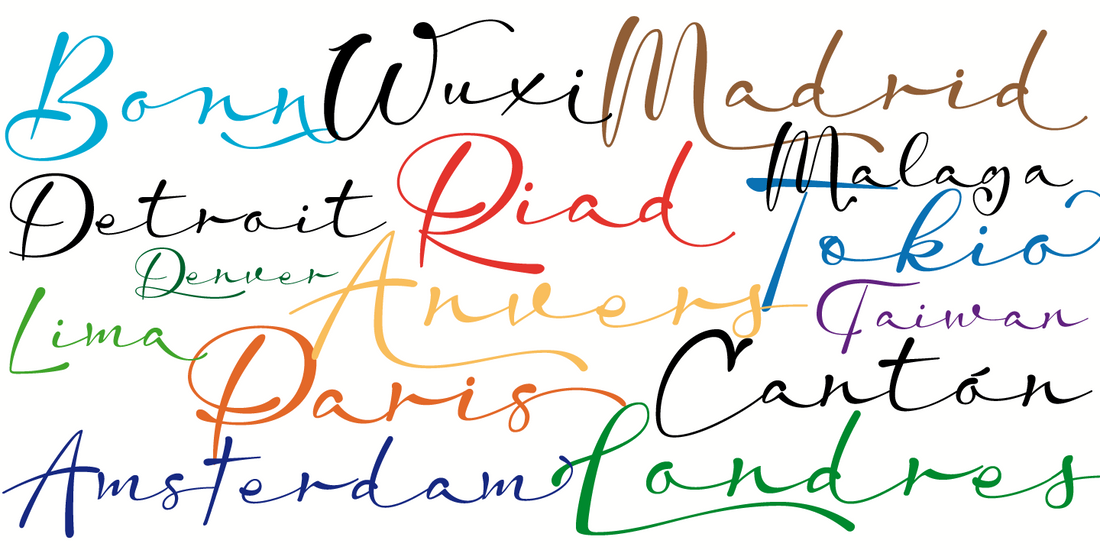
Escaut – Interview with Carine de Wandeleer
Carine de WandeleerInterviewer: Escaut is a modern-looking flowing handwriting font with a very relaxed appearance. Did you design it with any particular applications in mind?
Carine: No, I didn't really design Escaut for any specific purpose. Actually I don't think about what a font can be used for, because I believe that could limit me. I’m often inspired by what I see around me, on supermarket packaging, magazines, street signs, in the works of ancient calligraphers or contemporary artists, or simply in the writing of someone close to me. So no. I just wake up one day wanting to do this or that, and I do it.
The fonts that I produce are not for me, they are for other designers to use in their work. They are the ones who will choose the appropriate font for their application, and will use it as they want. I try to design with a wide range of styles, and the designer who is looking for a calligraphic font will find in my work a lot of material to choose from.
I: Escaut has the characteristic changes of contrast that make it look like it was drawn with an ink pen. Did you draft the characters on paper with a physical pen, and if so, what type of pen did you use?
C: Besides being a graphic designer, I studied calligraphy and fine arts. When I started designing fonts I used to draw dozens of examples of each letter on paper. I used different papers, more or less absorbent, and different writing tools. I have thousands of pencils, brushes, and pens of different kinds in my drawers. I also looked on the internet for information about making tools that would help my calligraphy, with unusual objects, tree branches, straw, cans, wood, etc., or I invented them myself. I studied in depth what the stroke of each tool was like, how it reacted if I loaded it with more or less ink, on different papers or materials.
Today I no longer need to do that artisan process. I decide how I want the font and imagine what it will be like. Only if I can't figure it out that way, I help myself by going back to the process of crafts, tools, and paper, but it is very rare. In the case of Escaut I wanted it to be a script made with a marker with a lot of ink, which leaves a charge of ink when the hand stops moving.
I: You’ve designed nearly 100 script fonts for Eurotypo, covering a wide range of styles from classic to modern. What would you say is the key secret to designing a connected font that looks handwritten?
C: I think that for a calligraphic font to look real, you need to study calligraphy and observe a lot. The study of calligraphy and fine arts were very important to me; they helped me to soften my hand, because the writing has to flow.
Calligraphic writing has a fluid character, and for it to look good, it has to look real, so it is important to include ligatures in calligraphic fonts. I see a lot of calligraphic fonts with errors in the ligatures; the letters are not linked correctly, so the flow is lost. When you write by hand, you create ligatures automatically without thinking; for example, it is not the same to link an ‘s’ to a ‘t’ than to another ‘s’. When designing the letter ‘s’ it is impossible for a single design to be used to link it with all the letters, so it is necessary to add special ligatures. You can’t do all of them, but at least a good selection of the most used ones.
Another very important consideration is to make sure that what you design is readable. My work is not that of a calligraphic artist, who makes a work more related to art where the aesthetic is ahead of the functional. As a graphic designer, my fonts are used for communication, so form and its function are closely linked. The creative-expressive cannot detract from the readable and comprehensible.